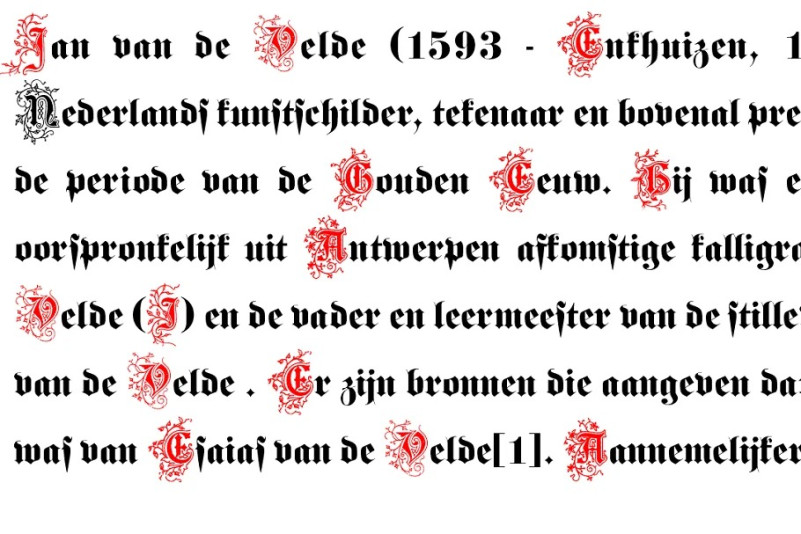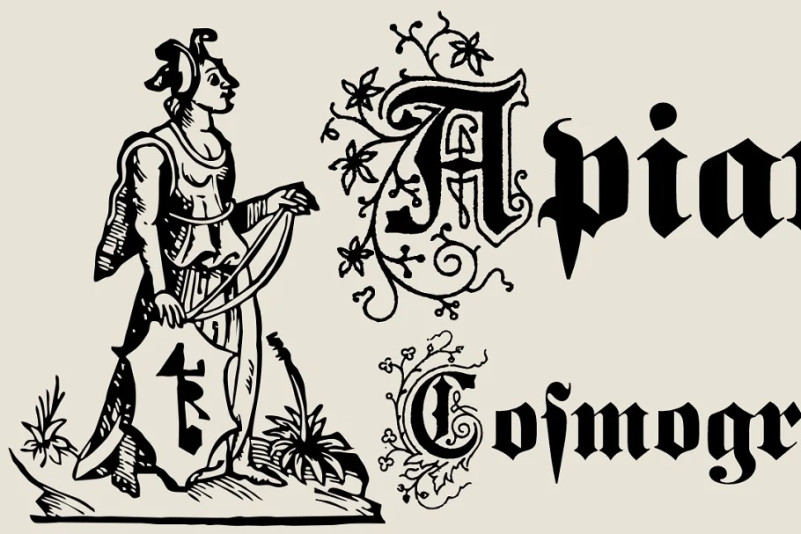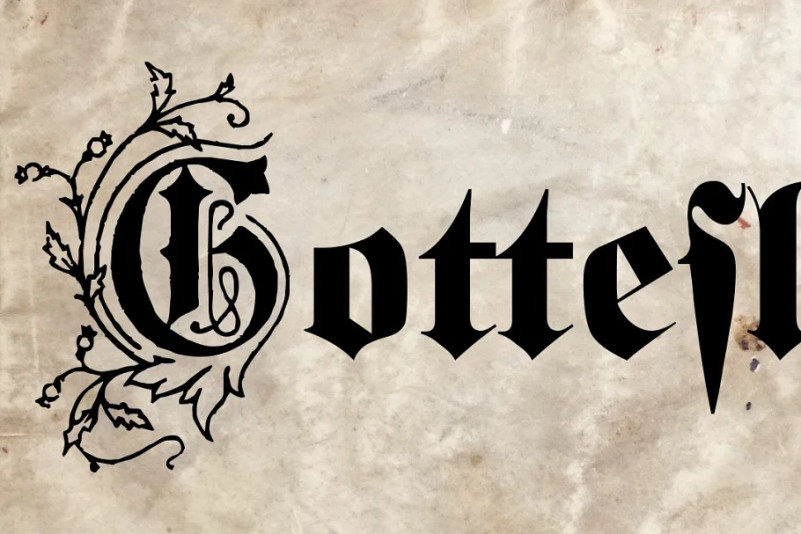
Gotteslob Font
Gotteslob Font , blackletter lower cases with beaufitul lombardic decorated initials. It is suitable for any bold branding, product packaging, invitation, quote, t-shirt, label, poster, logo that you wish to develop.